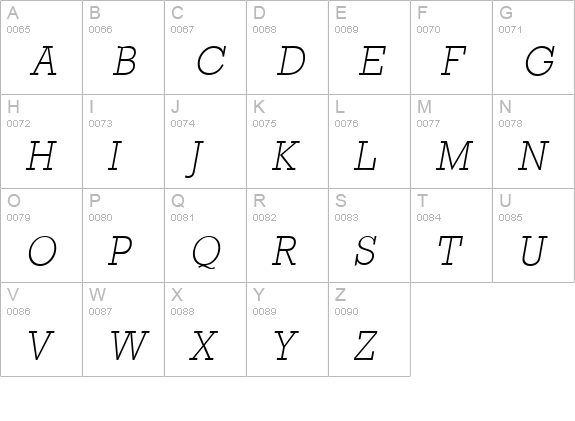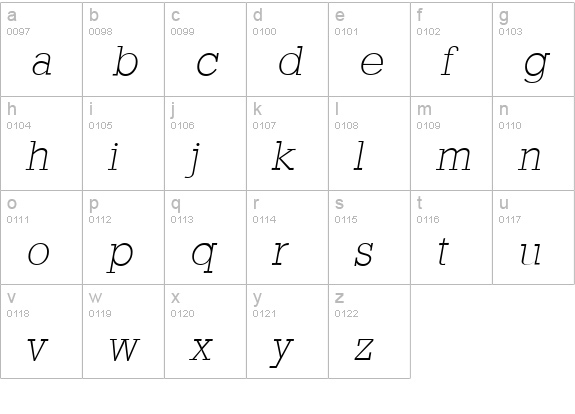
StaffordSerial-Xlight-Italic is a distinctive, italic variant in the StaffordSerial typeface family \xE2\x80\x94 well suited to design and typography projects.
StaffordSerial-Xlight-Italic font is a stylish and elegant typeface that exudes sophistication and modernity. Its delicate and slanted italic design adds a touch of refinement to any project, making it perfect for use in branding, editorial design, and more. The sleek strokes and unique letterforms of this font create a distinctive and eye-catching look that will captivate your audience. What makes StaffordSerial-Xlight-Italic font even more appealing is that it is available for free download at FontsMarket.com. This means you can easily incorporate this stunning typeface into your designs without any cost, allowing you to elevate your work with a premium-quality font at no expense. Don't miss out on the opportunity to enhance your projects with the elegance and sophistication of StaffordSerial-Xlight-Italic font – download it for free today at FontsMarket.com.